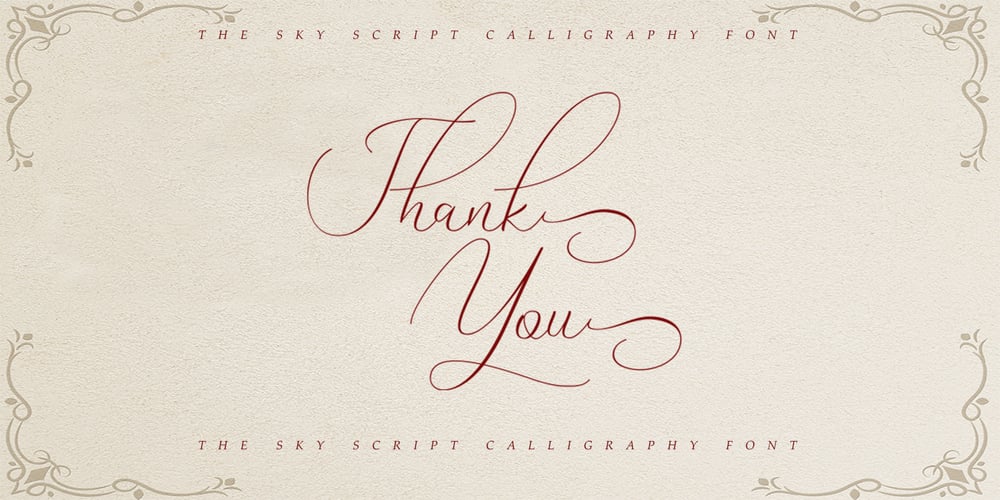
The Sky
The Sky font
The Sky Font Family was designed by Cut Nurfajarlia and published by Alandya TypeFoundry. The Sky contains 2 styles and family package options. Sky High script is a beautiful classic calligraphic font to add your design to be sweet, elegant, and perfect. Sky High script comes with more than 380+ glyphs per font file, to get richer in beautifying your design. This font will be appropriate for logo project, wedding invitation card, branding, home design, product packaging, quotation, logo, shirt, book cover, business card, greeting card and all other. It comes with a handy set of Opentype Stylistic Alternates, Ligatures and multiple language support. To enable the OpenType Stylistic alternates, you need a program that supports OpenType features such as Adobe Illustrator CS, Adobe Indesign & CorelDraw X6-X7, Microsoft Word 2010 or later versions. Don’t hesitate to drop me a message @alandyatype@gmail.com if you have any issues or queries